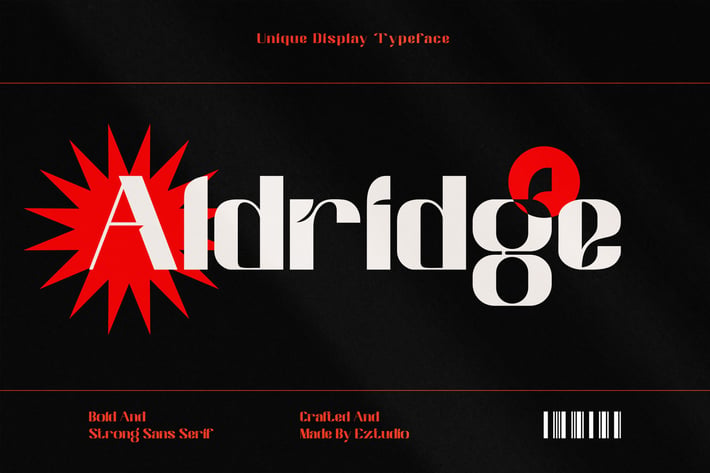
Unique Display Font - Aldridge
Aldridge Is A Modern, Elegant And Unique Display Font. It looks beautiful on a variety of designs requiring a personalized style, such as wedding invitations, event headlines, magazines, posters, thank you cards, weddings, greeting cards, logos and so on.
The Aldridge font includes:
Uppercase Letters
Lowercase Letters
Ligatures
Special Characters
Multilingual Glyphs